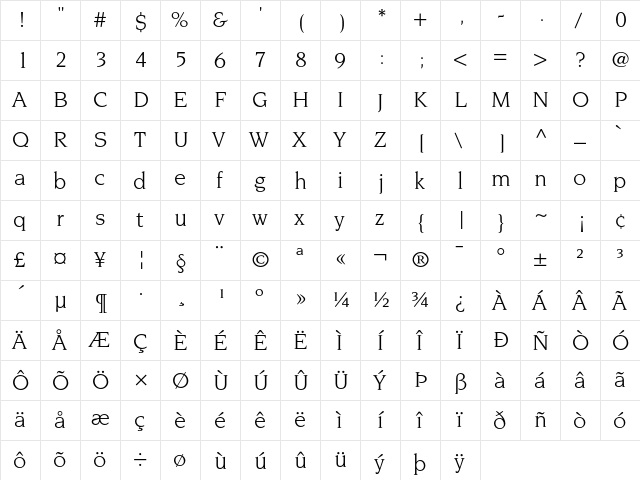
ITC Novarese Book
Design Context for ITC Novarese Typeface
ITC Novarese is a composed and adaptable typeface that performs quietly and consistently across a wide range of design contexts.
Pro Tip: Pair ITC Novarese with a font of contrasting weight or personality to build a more expressive typographic hierarchy.